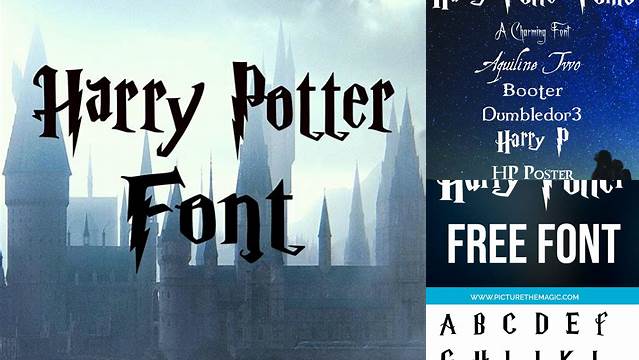
Free Harry Potter Fonts: Download & Use Today!
Unlocking the Magic: Where to Find Free Harry Potter Fonts
Hey everyone! Ever wanted to add a touch of wizarding wonder to your projects? Whether you're crafting a magical-themed party invitation, designing a fan-made poster, or just sprucing up your personal blog, finding the right font can make all the difference. And when it comes to the enchanting world of Harry Potter, the fonts are just as iconic as the characters themselves. Luckily for us, there are plenty of places to snag free Harry Potter fonts that will transport you straight to Hogwarts. We're talking about those distinctive letterforms that scream 'wizarding world' – from the classic movie titles to the familiar script used in the books. The good news is, you don't need to be a seasoned graphic designer or shell out a fortune to get your hands on these magical typefaces. The internet is brimming with resources for free font downloads, and many talented designers have recreated or been inspired by the Harry Potter aesthetic. So, get ready to dive into the digital Diagon Alley of fonts, because we're about to guide you on where to find these spellbinding options. This guide is all about making it super easy for you to find and download the perfect fonts to infuse your creations with that undeniable Harry Potter charm. No more searching endlessly; we've got the scoop on the best places to look for these font treasures. Let's get this magical font adventure started, shall we?
The Iconic Hogwarts Express Font: A Gateway to Wizardry
Alright, let's talk about that font. You know the one – the bold, slightly distressed typeface that graces the opening credits of the Harry Potter films and the famous Hogwarts Express ticket. This font is arguably one of the most recognizable in the entire franchise, instantly evoking images of steam, adventure, and the journey to a magical school. Many designers have attempted to replicate this iconic look, and the good news is, you can find free versions that get pretty darn close. When you're looking for this particular style, keep an eye out for fonts described as 'Hogwarts Express,' 'film title,' or 'magic train' fonts. They often feature strong serifs, a slightly weathered texture, and a commanding presence. This isn't just any font; it's a ticket to immersion. Imagine using it for a birthday banner for your little witch or wizard, or for a 'back to school' announcement with a magical twist. The impact is immediate and undeniably Potter-esque. When you download a font like this, make sure to check its licensing. While many free fonts are available for personal use, some might have restrictions for commercial projects. Always do a quick check to ensure you're using it legally and ethically. But for personal projects, get ready to have some serious fun with this classic gateway to the wizarding world. It’s a font that carries so much nostalgia and excitement, and having it readily available for free download makes bringing those magical vibes into your own creations a breeze.
Beyond the Logo: Exploring Harry Potter-Inspired Typefaces
While the Hogwarts Express font is a major draw, the Harry Potter universe is rich with various typographic styles that contribute to its overall magical feel. Think about the elegant, sometimes gothic-inspired lettering used in book titles or the more whimsical scripts found on certain magical artifact labels. These subtle yet significant typographic choices add depth and authenticity to the wizarding world. When you're on the hunt for free Harry Potter fonts, don't limit yourself to just direct replicas. Explore fonts that capture the essence of Harry Potter. Look for typefaces that have a slightly vintage feel, perhaps with ornate flourishes or a handwritten quality that suggests ancient spells or dusty spellbooks. Fonts with a bit of a mysterious or even slightly spooky vibe can also work wonders, especially if you're aiming for a darker, more atmospheric Harry Potter theme. Many font creators draw inspiration from various fantasy genres, so you might find fonts labeled as 'fantasy,' 'medieval,' 'gothic,' or 'storybook' that perfectly complement the Harry Potter aesthetic. Experimenting with different styles will help you discover unique combinations that might even surpass direct replicas. It’s about capturing that feeling, that sense of wonder and magic that the books and movies so brilliantly convey. So, go ahead, explore beyond the obvious and find those hidden gems that speak to the magic in your heart.
Creative Uses for Harry Potter Fonts: Beyond the Basics
Alright, now that you've got your magical fonts downloaded and installed, the real fun begins – using them! The possibilities are as endless as the corridors of Hogwarts, seriously. Forget just typing out your name; let's think creatively. Imagine designing a set of custom potion labels for a Halloween party – think 'Polyjuice Potion' or 'Felix Felicis' in a spooky, old-fashioned font. Or what about crafting personalized Hogwarts house crests for your friends, complete with their names in a fitting font? For book lovers, you could create unique bookmarks featuring quotes from your favorite characters, using a font that matches the book's original style. If you're throwing a themed birthday bash, think beyond the invitation. Use a bold, wizarding font for a 'Welcome to the Leaky Cauldron' sign, or create menus for your 'Great Hall Feast.' Even for digital projects, these fonts can add a special touch. Customize your social media banners, create magical-themed blog post headers, or even design custom emojis or stickers for your messaging apps. The key is to think about the specific elements of the Harry Potter universe – the castle, the spells, the creatures, the food, the school subjects – and how you can translate that vibe into your designs using these awesome fonts. Don't be afraid to mix and match different fonts for different elements to create a layered, authentic feel. Get inventive, guys!
Serif vs. Sans-Serif: Choosing the Right Magical Feel
When you're diving into the world of fonts, you'll notice a big difference between serif and sans-serif typefaces. Understanding this distinction can really help you nail that perfect Harry Potter vibe. Serif fonts have those little decorative strokes, or 'feet,' at the ends of the letters – think of the classic fonts you see in old books or newspapers. These tend to feel more traditional, formal, and sometimes a bit academic or old-world. For a Harry Potter feel, serif fonts are often a great choice, especially for evoking the feel of ancient spellbooks, Hogwarts' library, or the general sense of history and tradition within the wizarding world. Many of the fonts that closely mimic the movie titles or book covers use serifs. On the other hand, sans-serif fonts are clean and lack these decorative strokes. They feel more modern, straightforward, and often minimalist. While less common for direct Harry Potter replicas, sans-serif fonts can be used strategically. For example, a cleaner sans-serif might work well for modern, 'Muggle-tech' inspired elements within a fan project, or for a more minimalist take on a magical announcement. When selecting your Harry Potter fonts, consider the specific mood you want to create. Do you want that dusty, ancient tome feel (go for serifs)? Or perhaps a cleaner, more direct magical message (a carefully chosen sans-serif might work)? Experimenting with both will help you find the perfect balance for your project.
The Blackletter Style: Evoking Ancient Spells and Dark Arts
Speaking of old-world charm, let's talk about Blackletter fonts. You know, those really old-school, highly stylized fonts that look like they were painstakingly handwritten with a quill by a medieval monk? They have that distinctive, dense, and angular look. In the context of Harry Potter, Blackletter fonts can be incredibly effective at evoking a sense of ancient magic, powerful incantations, and even the darker aspects of the wizarding world. Think about the mysterious scrolls, forbidden texts, or ancient grimoires that might be hidden away in the Restricted Section of the Hogwarts library. Using a Blackletter font for titles of spells, names of dark artifacts, or even for headers in a particularly 'serious' or 'historical' fan project can add a fantastic layer of authenticity and atmosphere. Many free fonts inspired by the Harry Potter aesthetic will often incorporate Blackletter elements or styles that are heavily influenced by it. When searching, look for terms like 'Gothic,' 'Blackletter,' 'Old English,' or 'Medieval' fonts. Be aware, though, that Blackletter fonts can sometimes be challenging to read in large blocks of text, so they're often best used for headlines, titles, or short bursts of text where their visual impact is paramount. They truly add a unique and powerful punch, guys!
Crafting Thematic Invitations with Harry Potter Fonts
Okay, let's get practical with a super fun application: themed invitations! If you're planning a Harry Potter-themed party, birthday, or even a wedding (yes, people do that!), using the right fonts is non-negotiable for setting the mood right from the start. Imagine sending out invitations that look like they were penned by Professor McGonagall herself. You could use a classic, bold movie-style font for the main heading, like